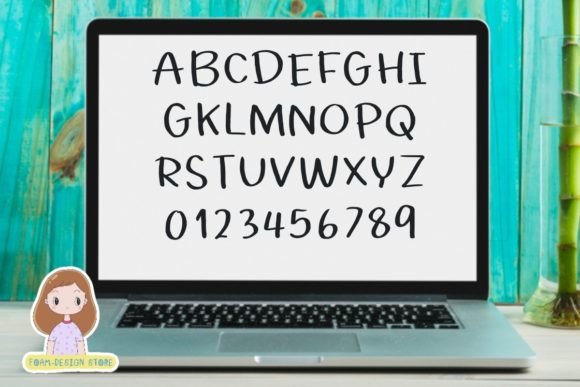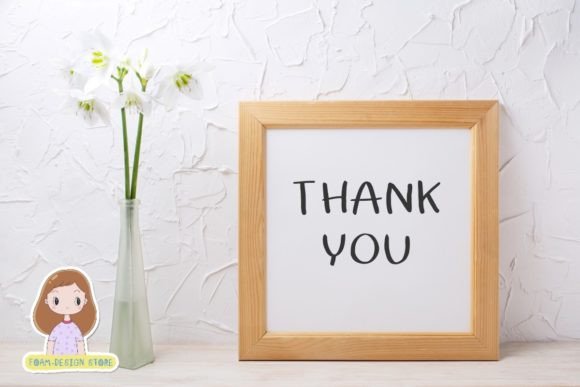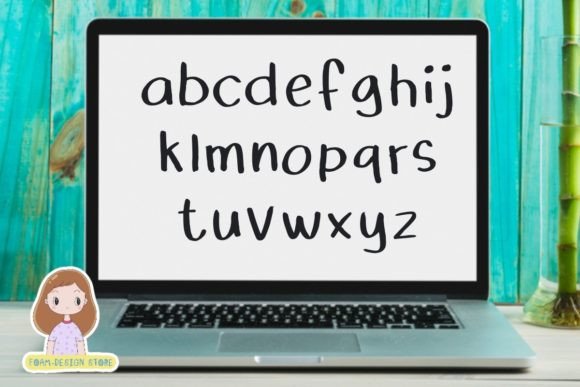
Pen Marker Font
About Pen Marker Font
Introducing “Pen Marker,” a simple and cool handwritten font designed to bring a friendly feel to your creative projects. This font’s versatility makes it incredibly flexible, fitting seamlessly into a wide range of contexts. Embrace the fun and trendy vibe of this font and explore its endless variations. Whether you’re using it for crafting, digital designing, presentations, or any other creative endeavor, “Pen Marker” is the perfect choice!
The friendly feel of “Pen Marker” adds a welcoming and approachable quality to your text. This makes it suitable for various applications, from crafting projects to digital designs and presentations. Its simplicity and cool aesthetic ensure that it can adapt to different design needs with ease.
Imagine having fun with “Pen Marker” and experimenting with its trendy variations. Picture it adding a laid-back and cool touch to your creative projects, making them visually appealing and engaging. Whether you’re working on posters, digital content, or crafting materials, “Pen Marker” is ready to enhance the overall vibe.
In summary, “Pen Marker” is more than just a font; it’s a simple and cool design asset. Embrace its friendly feel and have fun exploring its endless variations confidently. Let “Pen Marker” be the font that brings a trendy and flexible quality to your creative endeavors, making them perfect for a wide range of contexts.